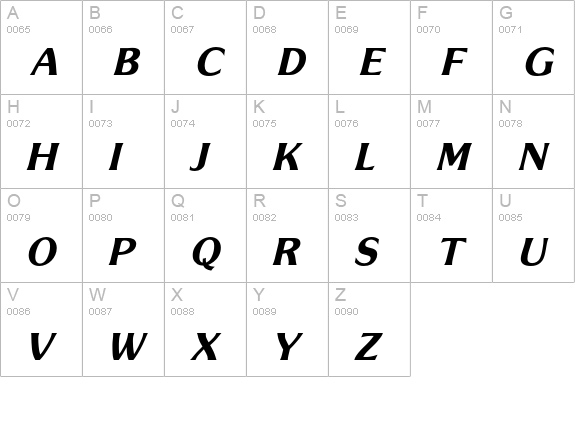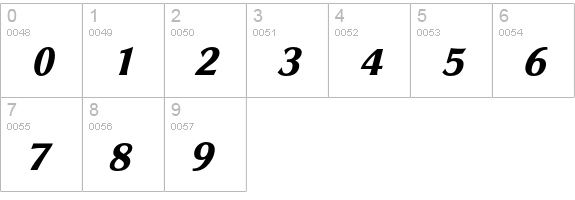
SouvenirGothic-DemiBoldItalic is a captivating and stylish font that exudes sophistication and elegance. With its unique combination of boldness and italicized curves, this font is perfect for adding a touch of class to any design project. This font's distinctive letterforms demand attention and draw the eye in with their sleek and modern appearance. The DemiBold weight adds a sense of strength and confidence to the text, while the italicized slant adds an element of dynamism and movement. Whether you are designing a logo, creating a website, or crafting a printed piece, SouvenirGothic-DemiBoldItalic will make a lasting impression. Its versatility allows it to be used for a wide range of applications, from headlines and titles to body text and captions. What sets SouvenirGothic-DemiBoldItalic apart is that it is not only visually stunning, but it is also freely available to download at FontsMarket.com. This means that you can incorporate this font into your projects without any restrictions or limitations. The freedom to use this font without worrying about licensing fees or restrictions allows you to truly unleash your creativity and bring your design visions to life. Download SouvenirGothic-DemiBoldItalic today from FontsMarket.com and elevate your designs to new heights. With its sophisticated aesthetic and the freedom to use it however you please, this font is a must-have for any designer looking to make a bold statement.